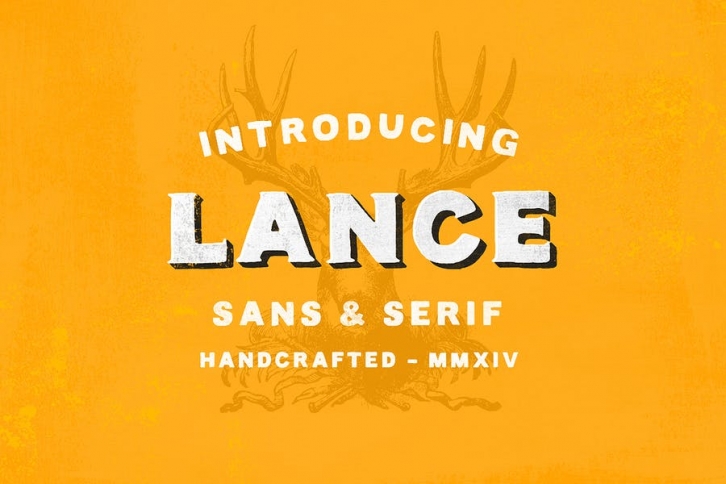
An all capitals font duo that works together in harmony. Inspired by bold, classic typography and ideal for a whole range of creative projects. The fonts were purposefully designed to look great both front and center, and also as a complementary font to others.
The Lance pair are entirely handcrafted with all imperfections intact; enhancing the authentic handmade feel that has always been so desirable.
- Handcrafted Font Family
- Sans and Serif Styles Included